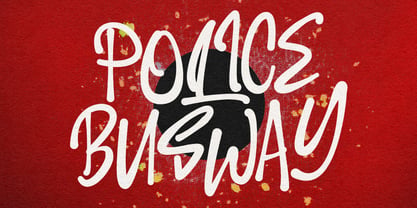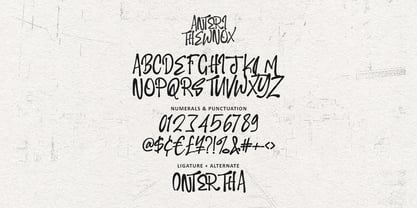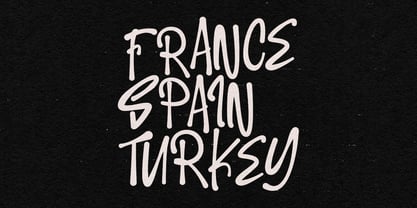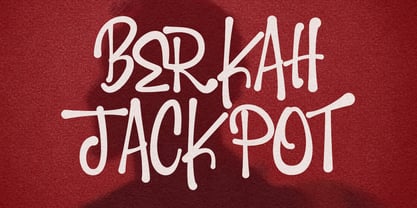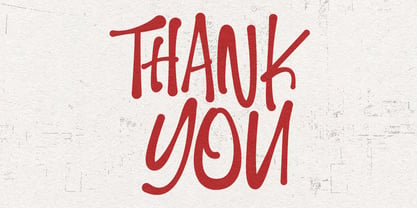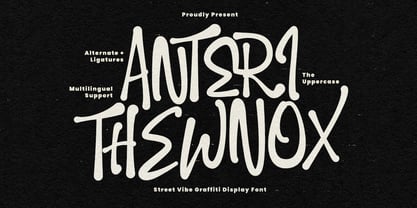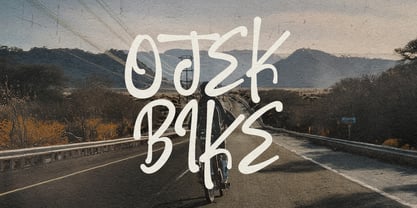
MC Anteri Thewnox
by Maulana Creative
The MC Anteri Thewnox Font Family was designed by Gilang Maulana and published by Maulana Creative. MC Anteri Thewnox contains 1 styles. More about this family
Anteri Thewnox is a raw, high-energy display font that captures the authentic soul of underground street art. Designed with fluid, hand-drawn strokes and a rebellious "street vibe," this typeface mimics the natural flow of a spray can or felt tip marker. Featuring a complete set of all-caps characters, unique ligatures, and stylistic alternates, it allows for a truly custom, hand-tagged appearance. Whether you are designing edgy hip-hop concert posters, bold social media graphics, or urban-themed branding, Anteri Thewnox brings an unapologetic attitude and effortless cool to every project.
Designers: Gilang Maulana
Foundry: Maulana Creative